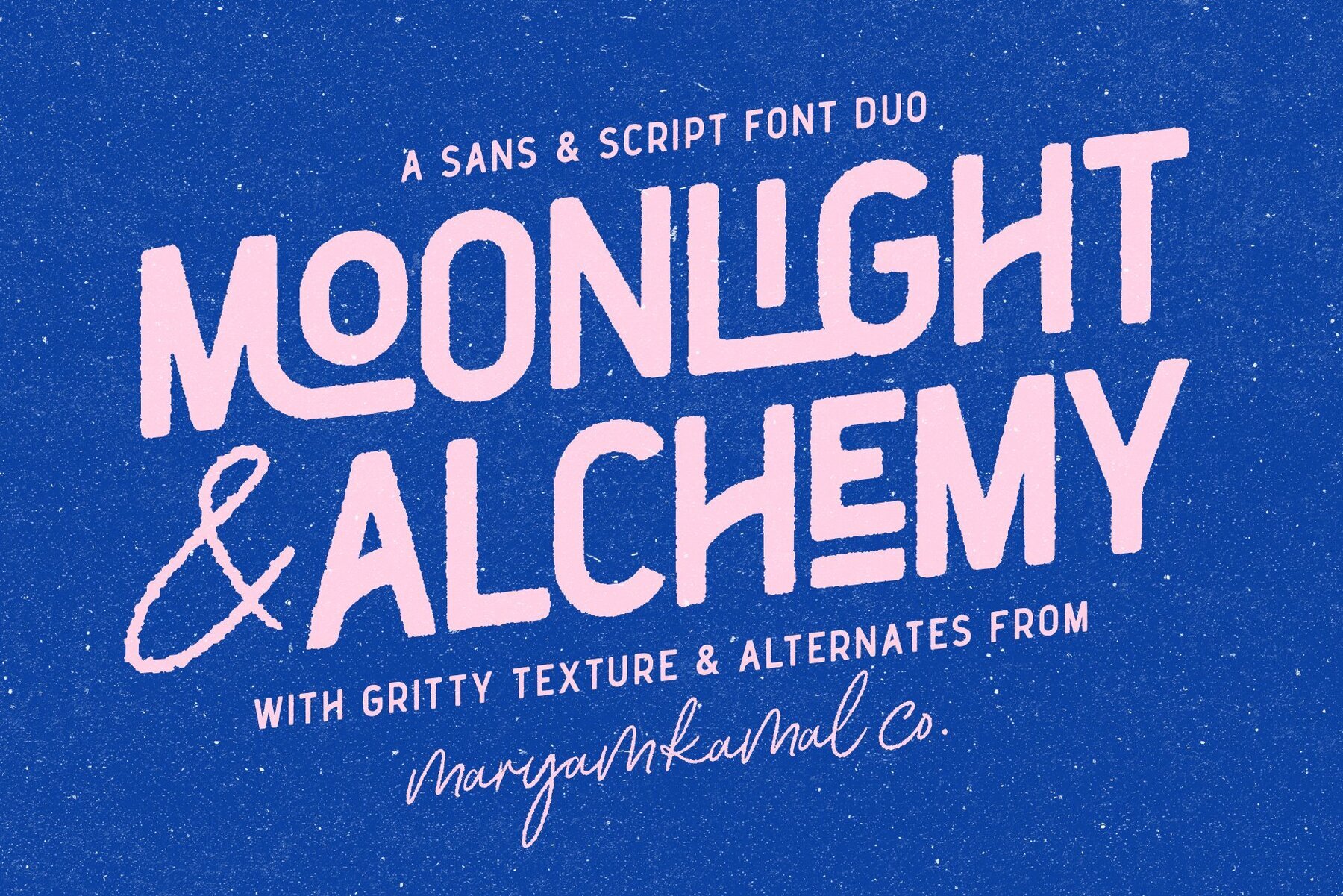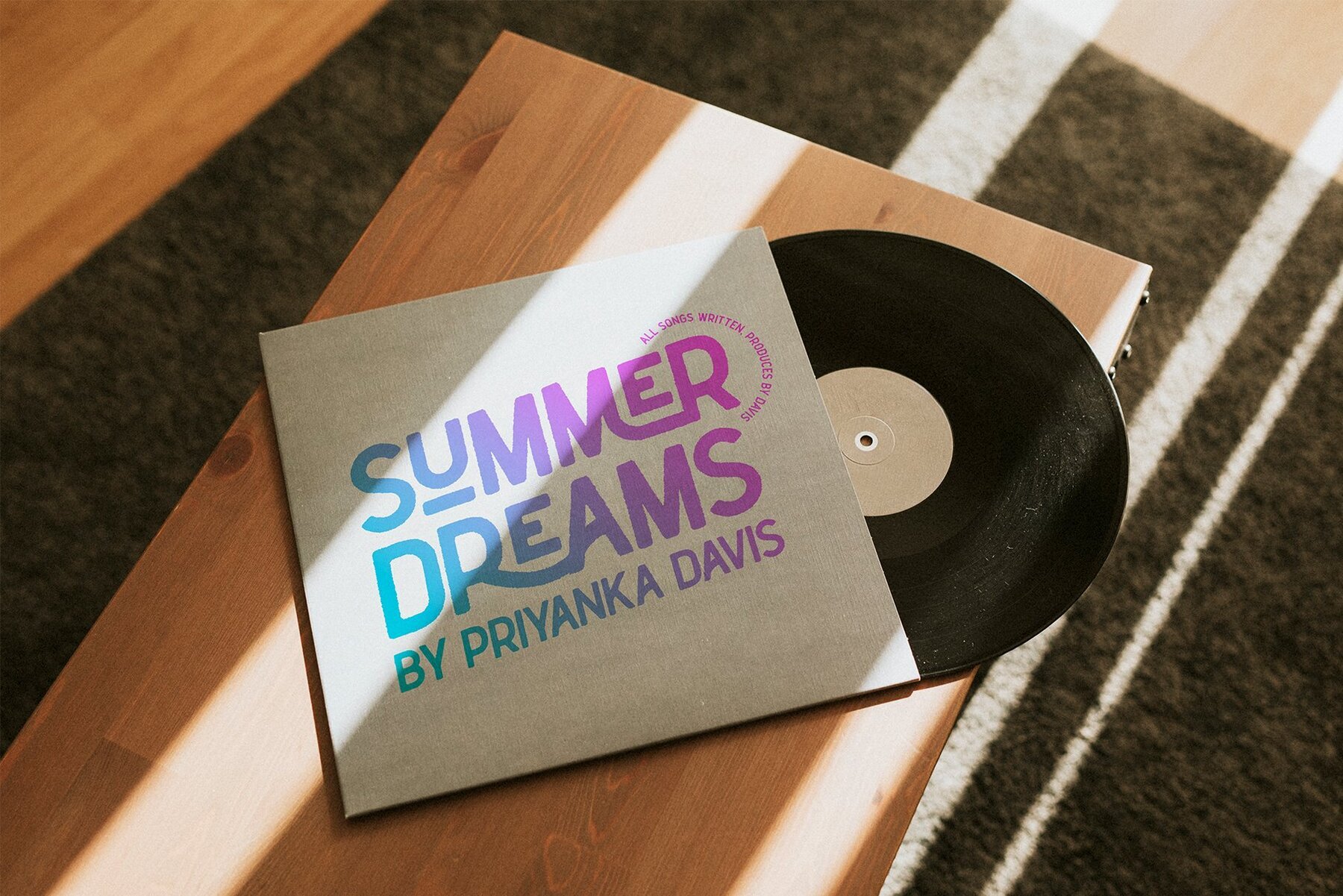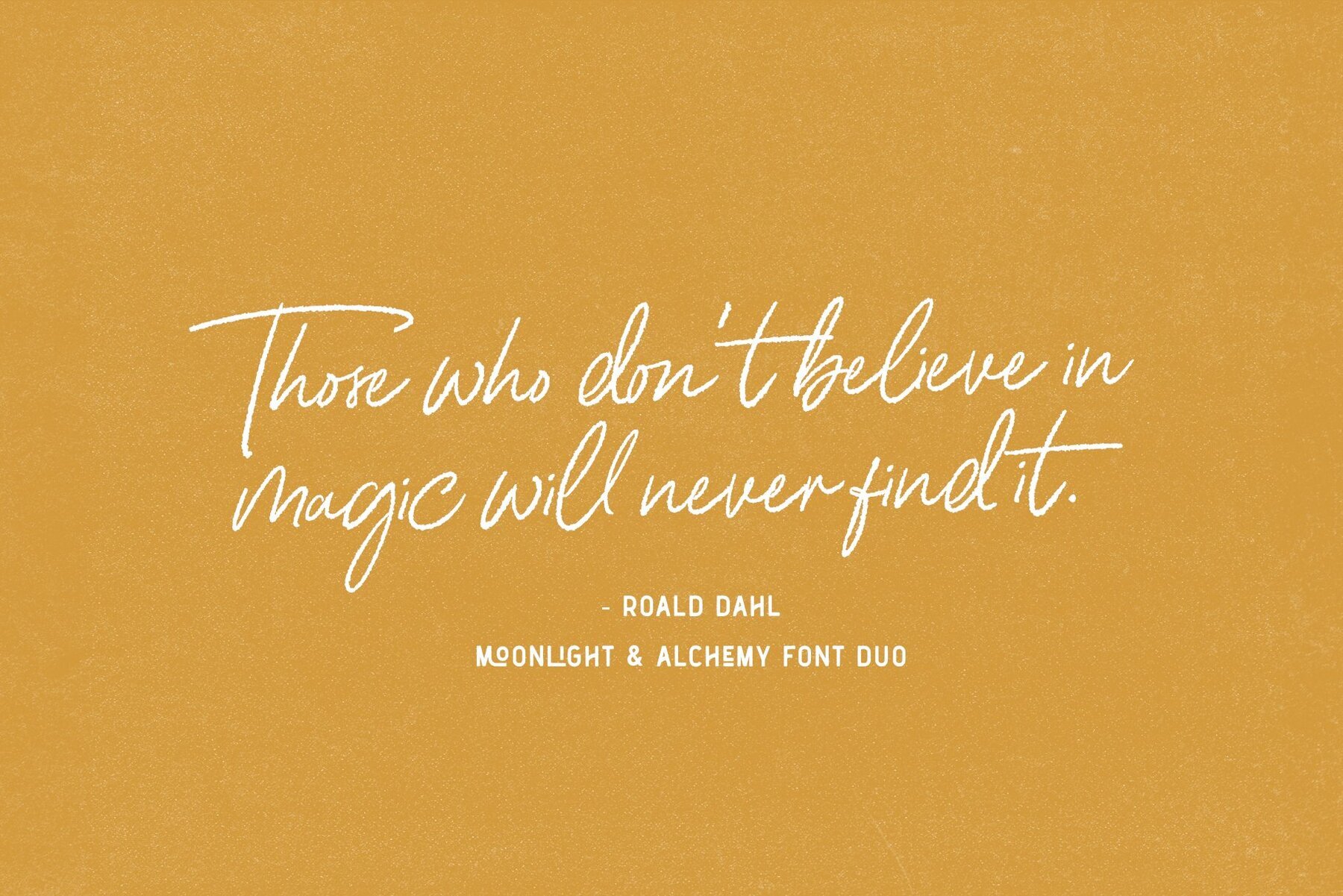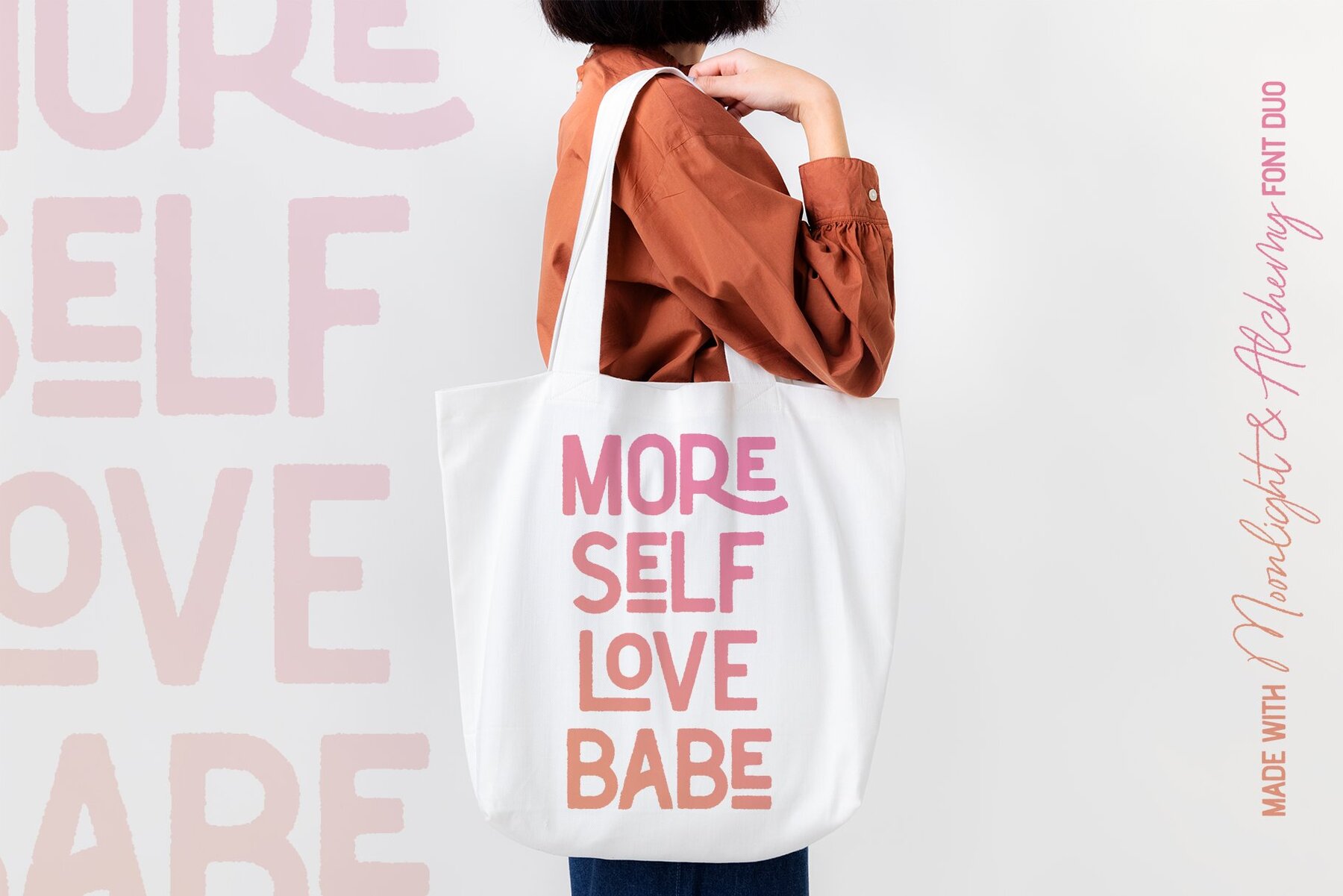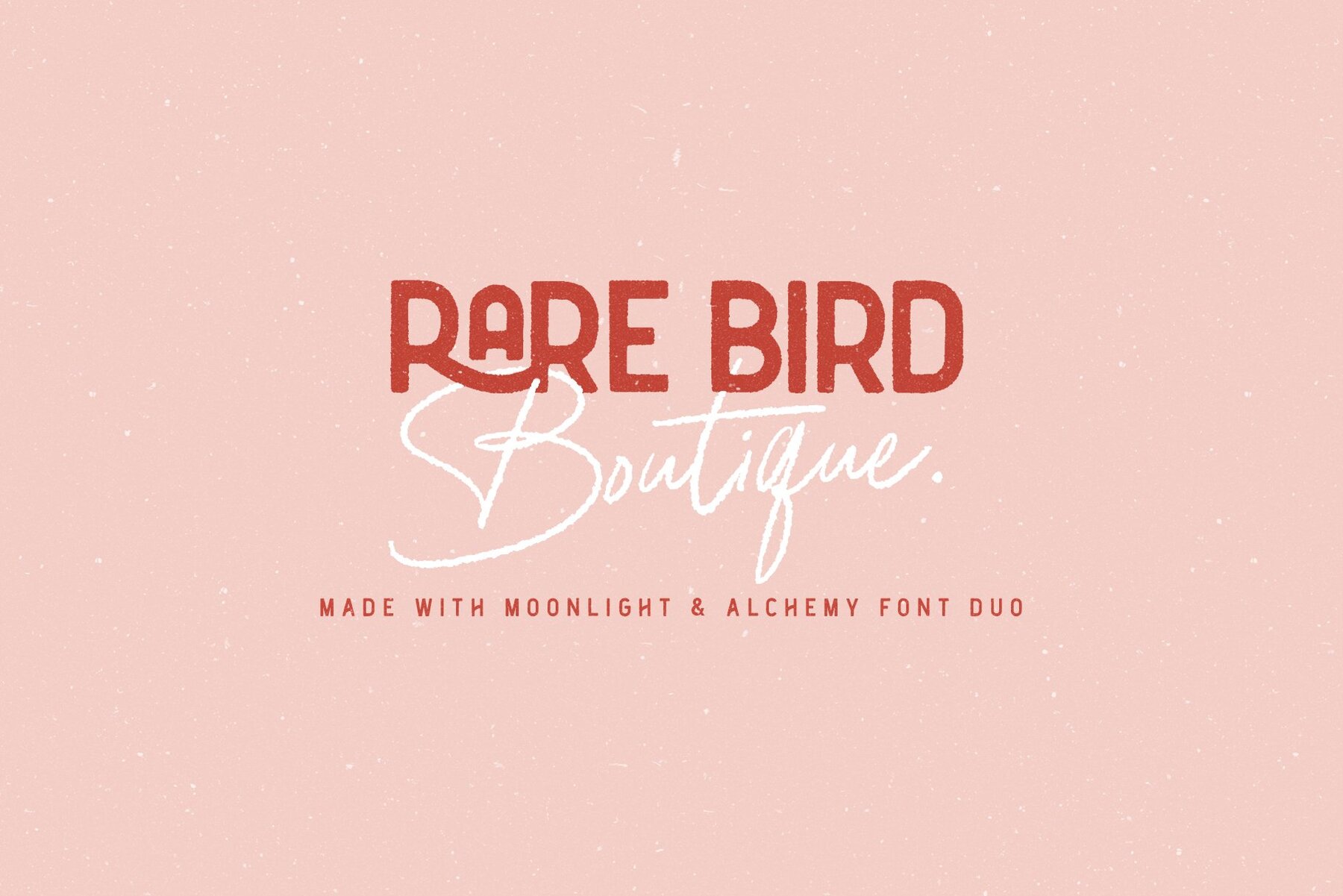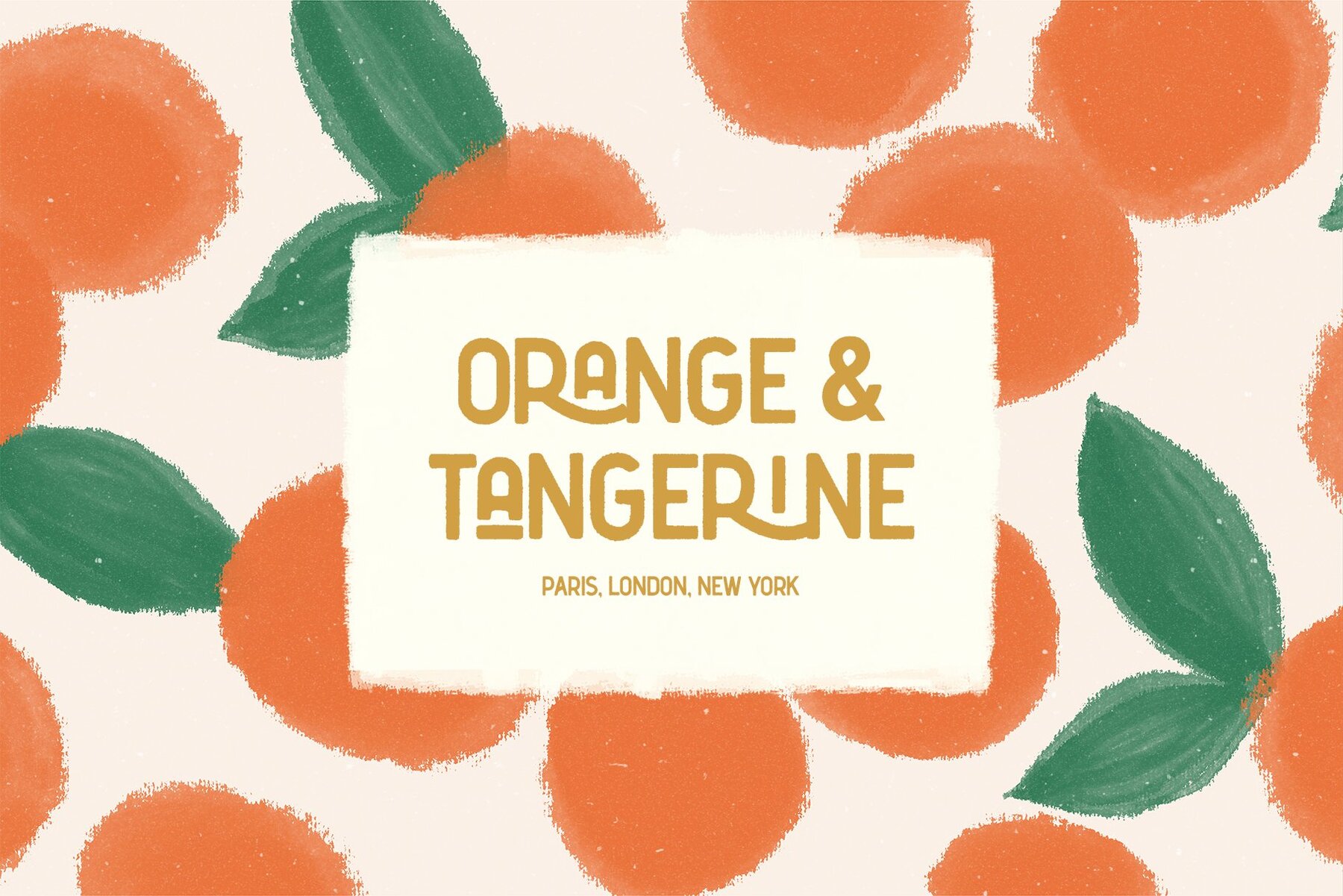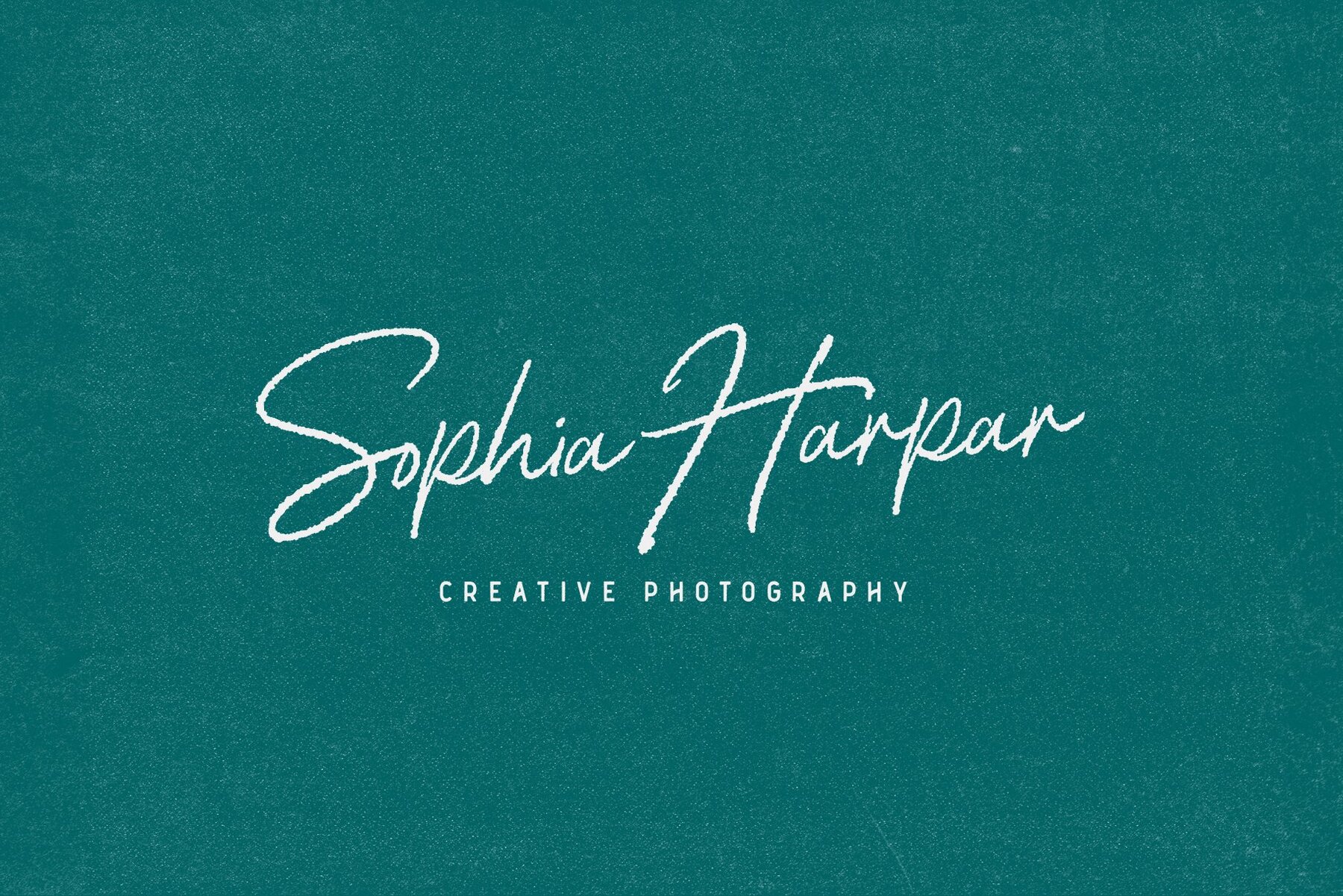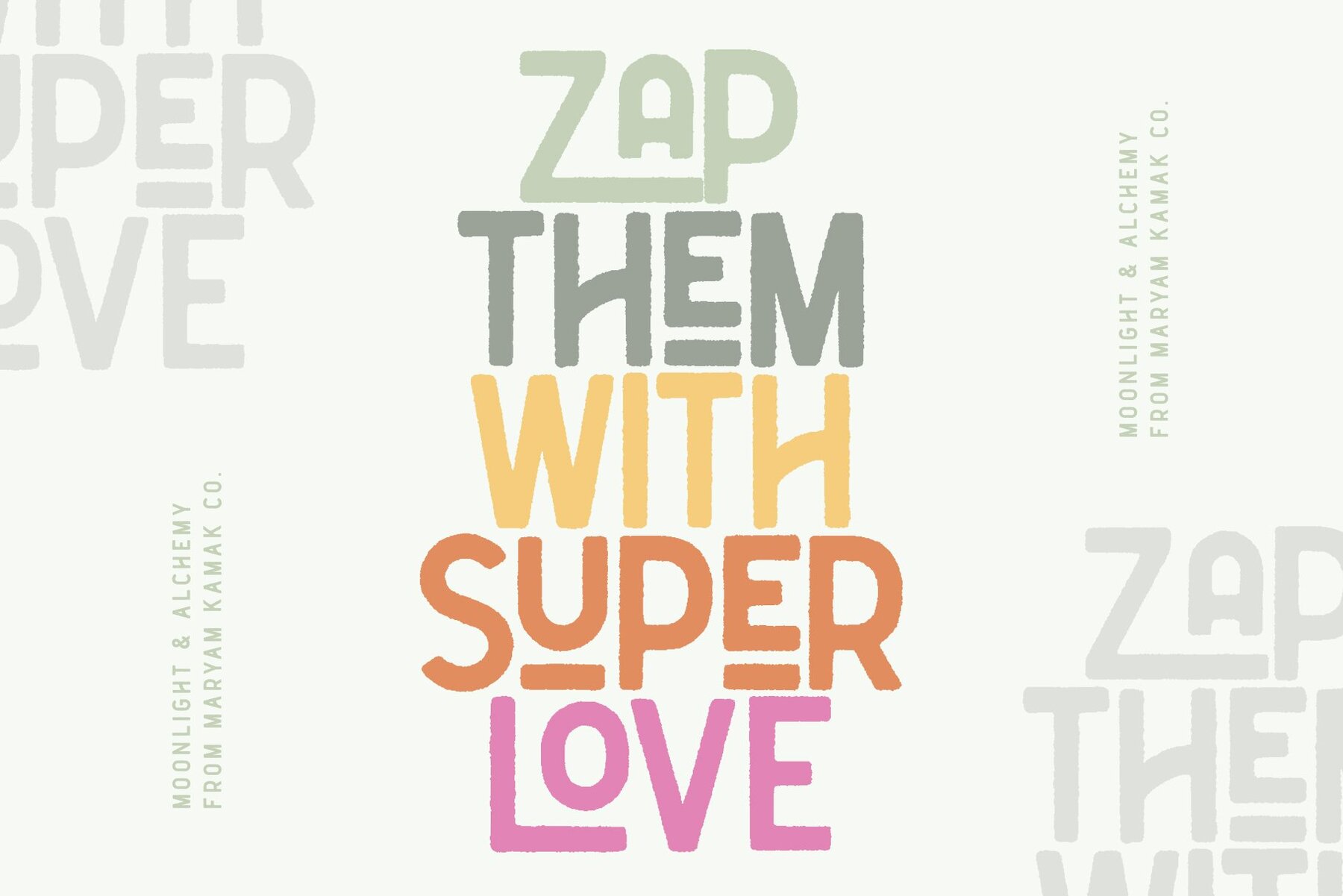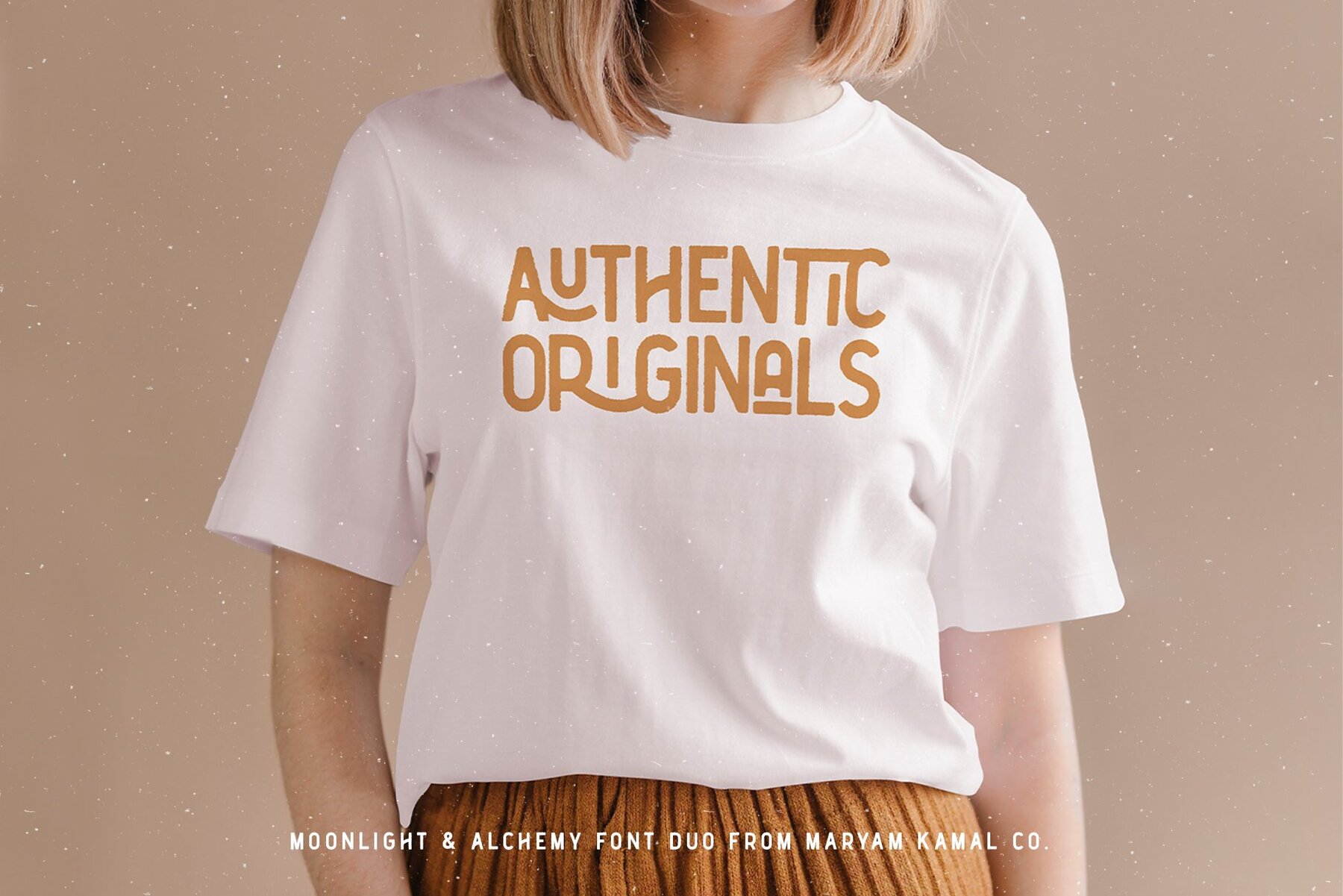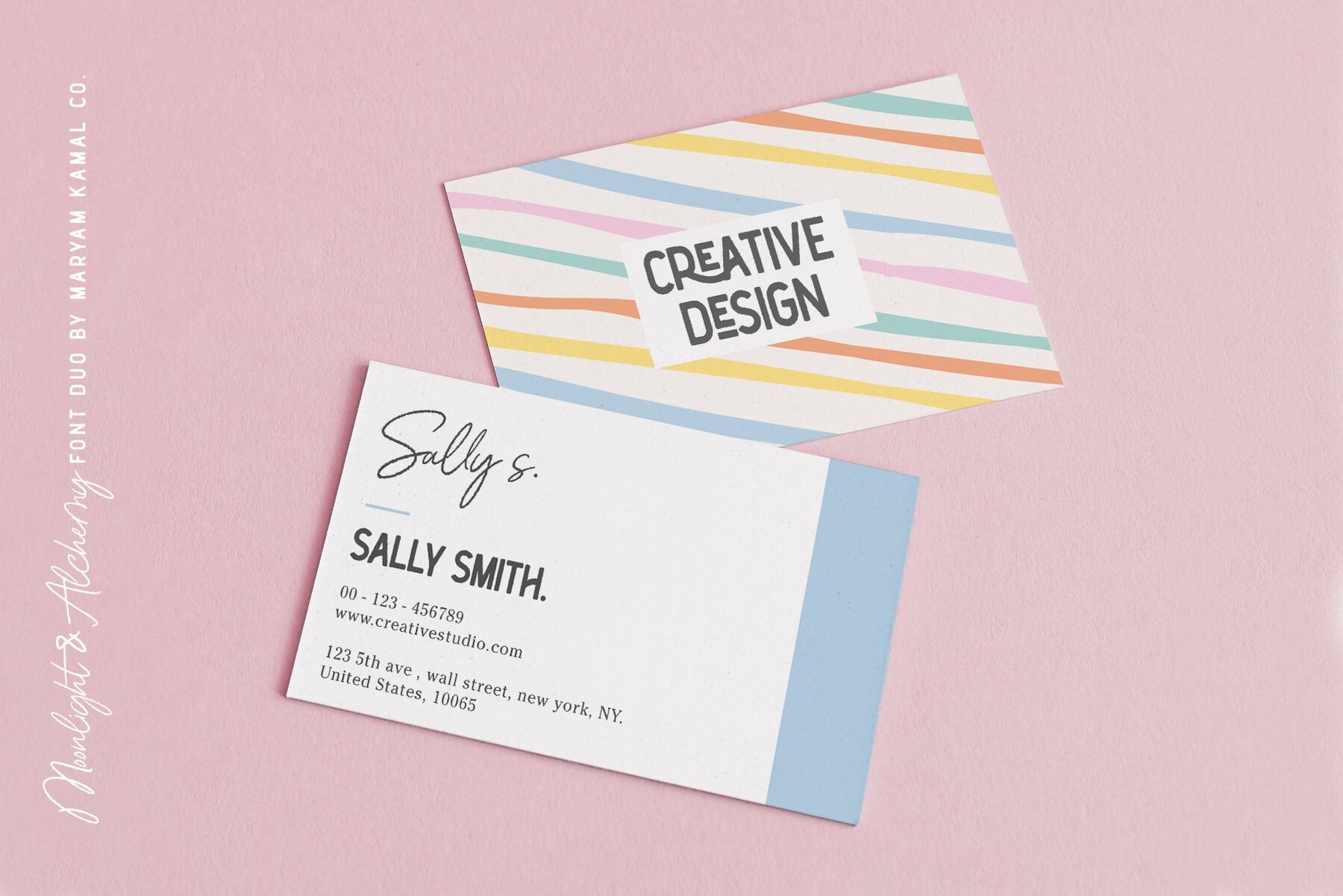
Moonlight Alchemy Font
Introducing Moonlight & Alchemy font duo - Super rich with gritty texture and stylistic alternates. The sans font is perfect to be used as it is or jazz it up and add character to your lettering using sophisticated stylistic alternates. Paired with an inky signature font with a matching texture. The script font also comes with many ligatures for a smooth handwriting effect! Experiment with spacing out the sans letters or using both the sans and script in one line. Perfect to use for creating logos, branding, labels, t-shirts, mugs, totes, business cards, greeting cards and retro modern designs.